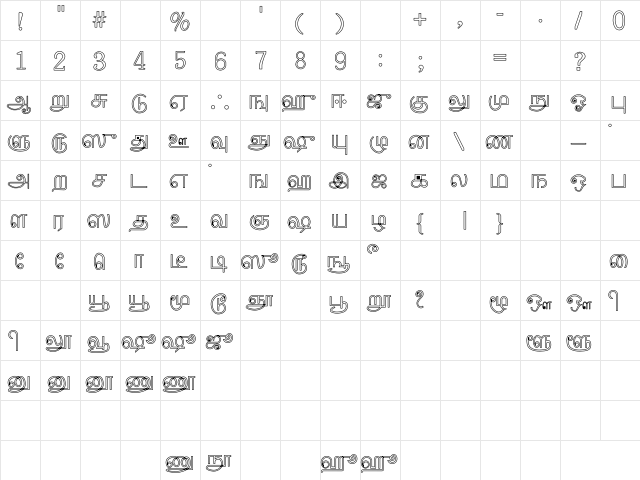
Palladam Hollow Medium
Design Context for Palladam Hollow Typeface
Palladam Hollow takes a measured approach to typography — its balanced proportions and neutral character make it a reliable workhorse for both digital and print work.